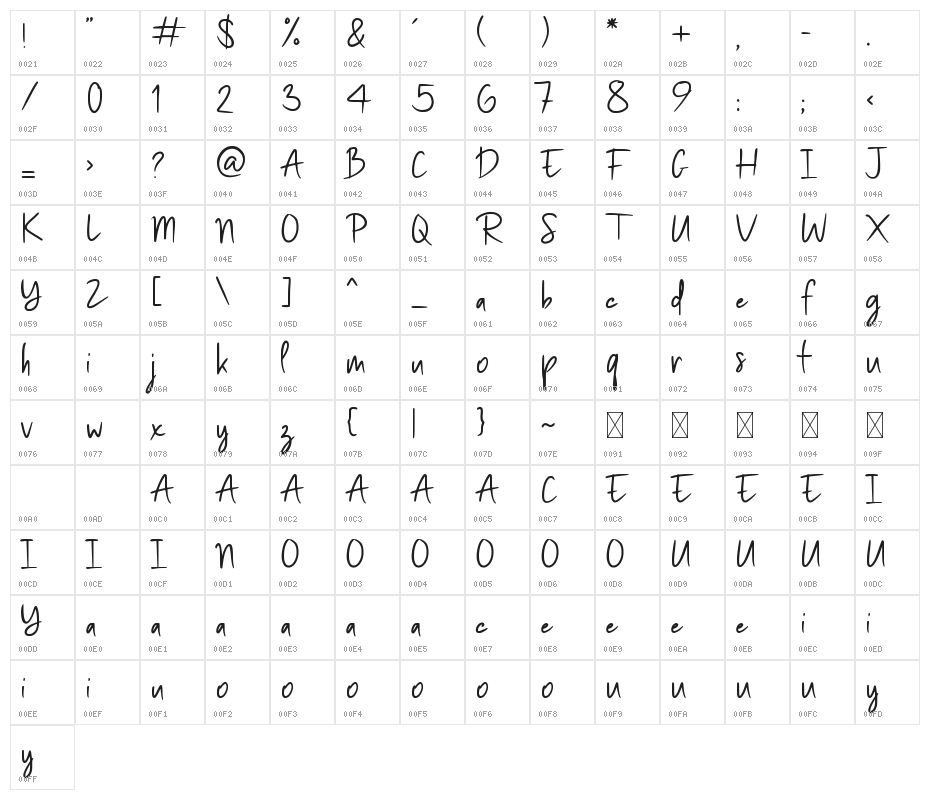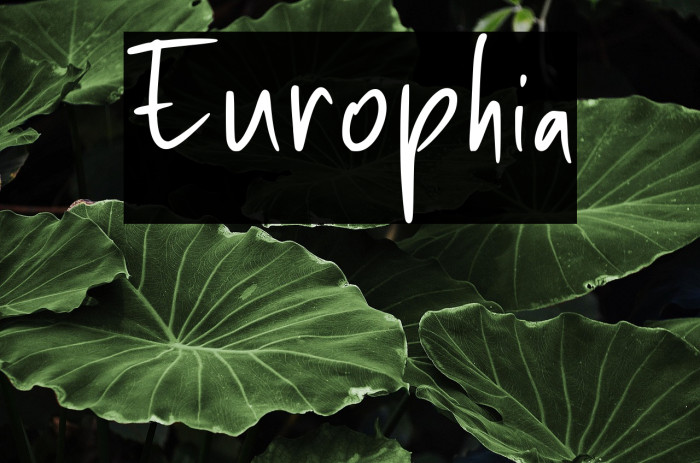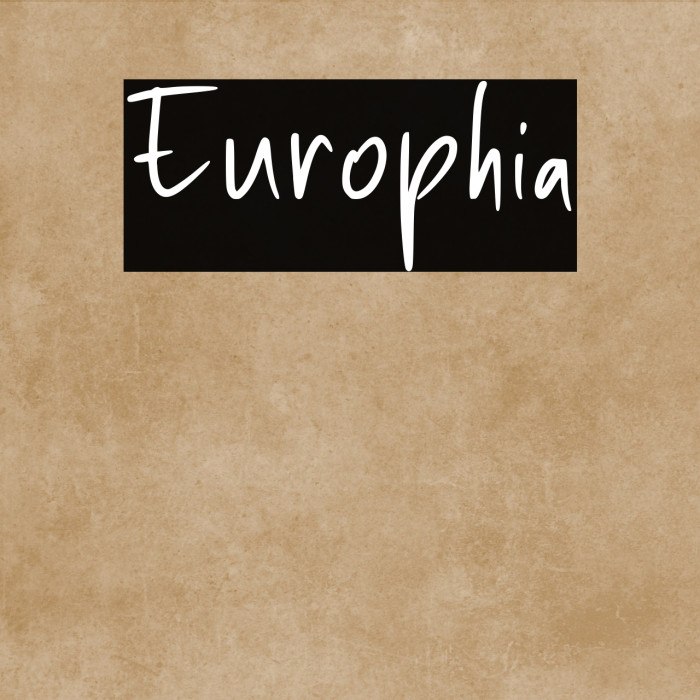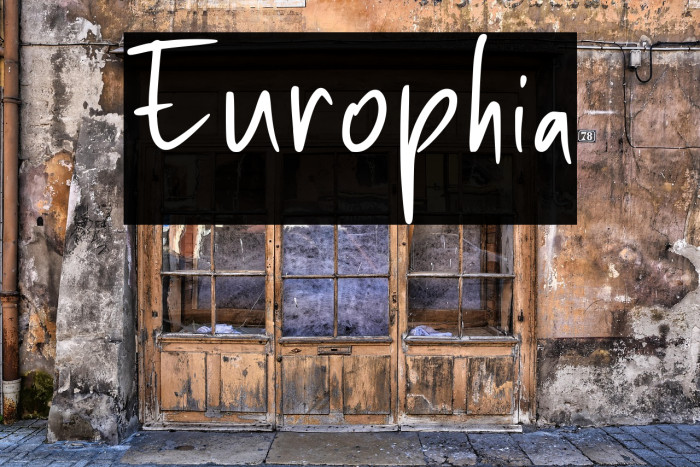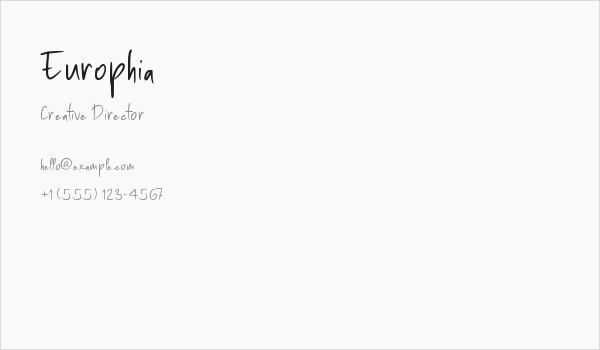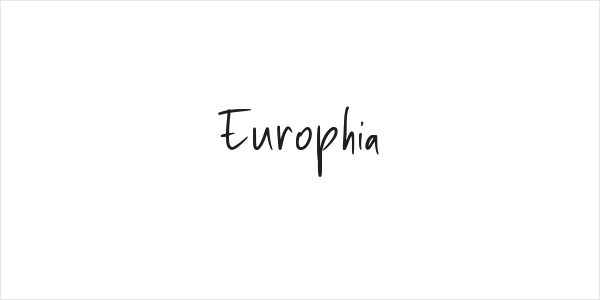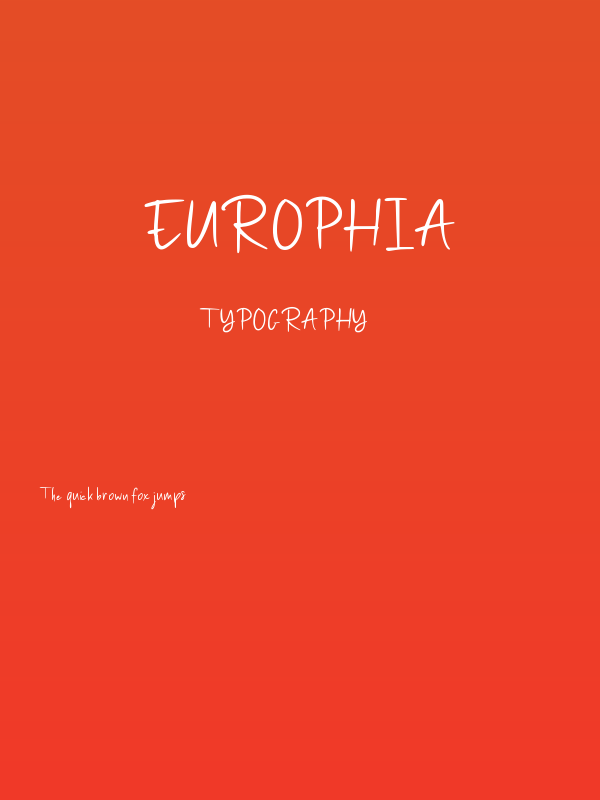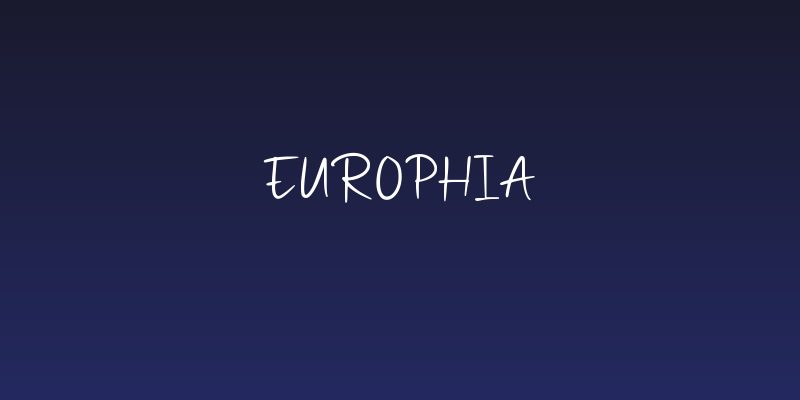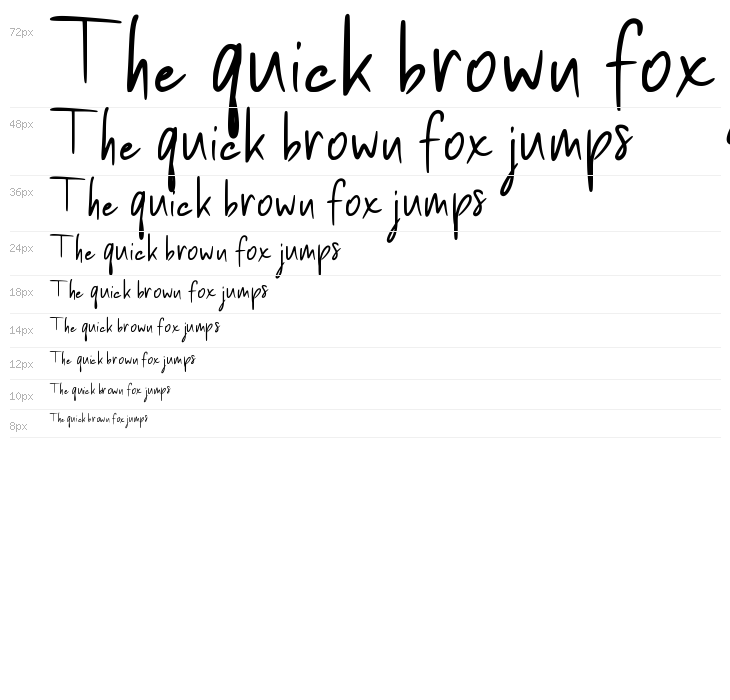
Europhia Font
Europhia Description
This font features a playful and casual handwritten style, characterized by its fluid and natural strokes. The letters have a slightly irregular baseline, adding to the informal and approachable feel. The uppercase letters are tall and narrow, while the lowercase letters are more rounded and varied in height, creating a dynamic and lively appearance. The numerals and special characters maintain the same handwritten charm, ensuring consistency throughout. This font is perfect for projects that require a personal and friendly touch.
| Use Case | Logos, Headlines, Informal Text |
| Proposed Projects | Ideal for greeting cards, personal branding, social media graphics, and informal invitations. |